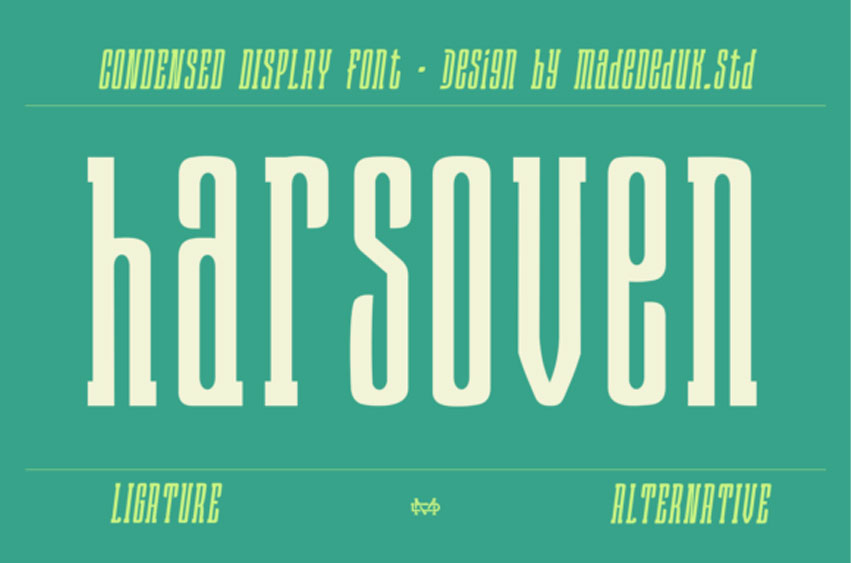
Harsoven Regular Font is a bold, condensed display font that blends a vintage-inspired aesthetic with a modern, minimalist twist. Its tall, narrow letterforms create an impactful vertical presence, making it perfect for attention-grabbing titles and designs that demand a strong visual hierarchy.
The font features clean, geometric strokes with carefully balanced kerning and thoughtful spacing, ensuring excellent readability despite its condensed structure. Its subtle ligatures and stylistic alternates add character and flexibility, allowing designers to experiment with both classic and modern looks.
With its striking height and condensed proportions, Harsoven is ideal for a wide range of applications. Use it for editorial headlines, posters, logos, packaging, signage, or digital graphics where space is limited but style is paramount. Its elegant and structured letterforms make it especially effective in fashion, lifestyle, and luxury branding projects.
Harsoven’s precise spacing and sleek vertical rhythm ensure that every layout feels refined and balanced, whether you’re designing for print or digital platforms. It’s a versatile choice for creatives looking to combine boldness with sophistication in their typography.